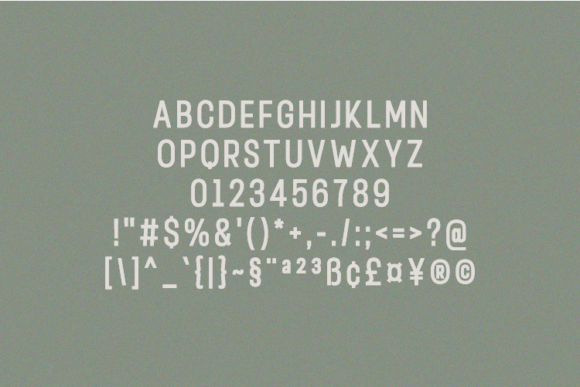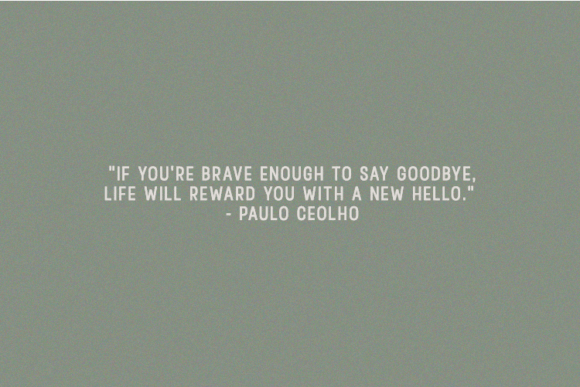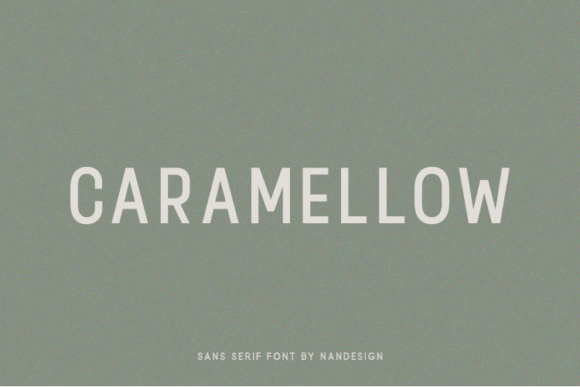
Introducing Caramellow Font: Elevate Your Designs with Elegance
Are you tired of using the same old fonts for your design projects? Look no further than Caramellow Font, a stunning sans serif font that is sure to complement every project you’re working on. With its clean lines, elegant curves, and versatility, Caramellow Font is the perfect choice for designers and crafters looking to add a touch of sophistication to their work.
What is Caramellow Font?
Caramellow Font is a beautifully crafted sans serif font that is designed to help you create stunning headings, gorgeous invitations, and breathtaking logos. Whether you’re working on a wedding invitation, a save-the-date card, or a business logo, Caramellow Font is the perfect choice. With its uppercase alphabet, numbers, and symbols, this font has everything you need to create beautiful and professional-looking designs.
Features of Caramellow Font
- Stunning sans serif design: Caramellow Font features a clean and elegant sans serif design that is perfect for creating beautiful headings, invitations, and logos.
- Uppercase alphabet: The font includes a complete uppercase alphabet, making it perfect for creating titles, headings, and emphasis text.
- Numbers and symbols: In addition to the alphabet, Caramellow Font also includes numbers and symbols, giving you everything you need to create professional-looking designs.
- Perfect for displays and headers: The font’s clean lines and elegant curves make it perfect for use in displays, headers, and titles.
- Ideal for invitations and weddings: Caramellow Font is a popular choice for wedding invitations, save-the-date cards, and other special occasion designs.
Why Choose Caramellow Font?
So why choose Caramellow Font over other fonts? Here are just a few reasons:
- Versatility: Caramellow Font is incredibly versatile, making it perfect for use in a wide range of design projects.
- Elegance: The font’s clean lines and elegant curves give it a sophisticated and professional look that is sure to impress.
- Easy to read: Despite its elegant design, Caramellow Font is still easy to read, making it perfect for use in body text as well as headings.
How to Use Caramellow Font
Using Caramellow Font is easy! Here are a few tips to get you started:
- Pair it with other fonts: Caramellow Font pairs well with a wide range of other fonts, so don’t be afraid to experiment with different combinations.
- Use it for headings and titles: The font’s elegant design makes it perfect for use in headings and titles.
- Add it to your design arsenal: With its versatility and elegance, Caramellow Font is a great addition to any designer’s arsenal.
In conclusion, Caramellow Font is a stunning sans serif font that is sure to elevate your designs to the next level. With its elegant design, versatility, and ease of use, it’s the perfect choice for designers and crafters looking to add a touch of sophistication to their work. Whether you’re working on a wedding invitation, a business logo, or a personal project, Caramellow Font is the perfect choice.